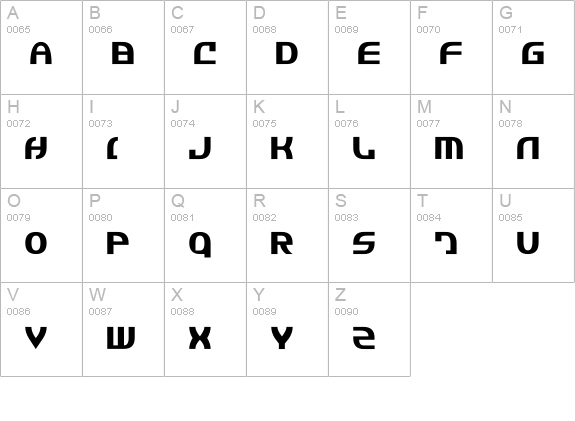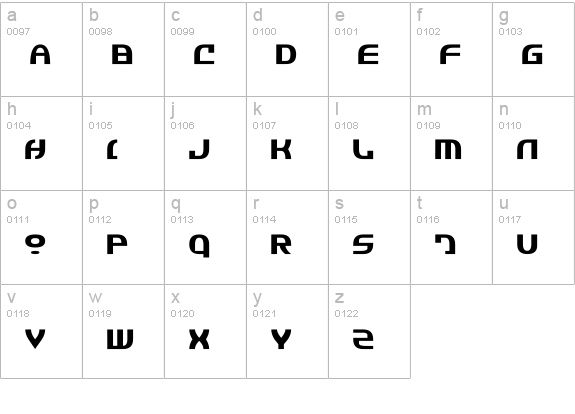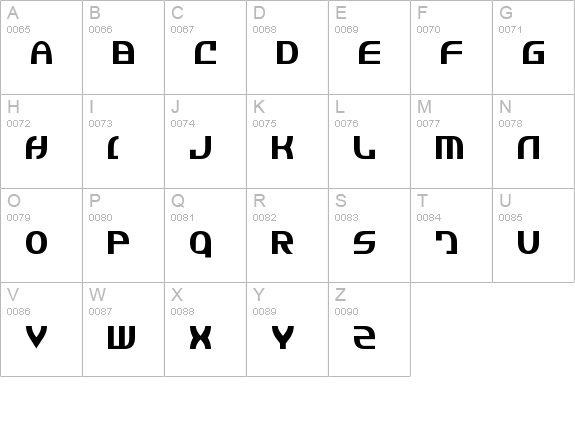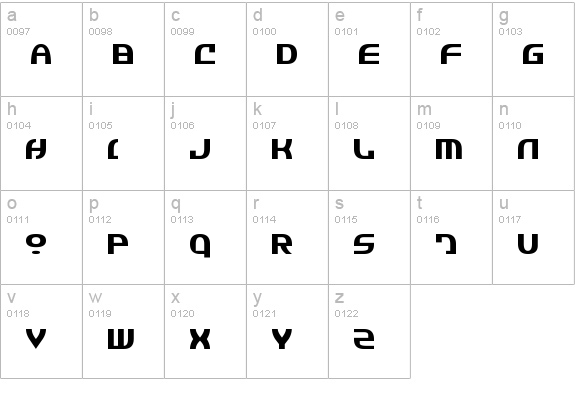
Jannisary Extra Font Details
Introducing Jannisary Extra, a stunningly bold and expressive font that will captivate your audience with its powerful presence. Created with meticulous attention to detail and an unwavering commitment to quality, Jannisary Extra is a true masterpiece in the world of typography. This font boasts a unique combination of strength and elegance, making it perfect for a wide range of design projects. Whether you're creating eye-catching headlines, designing striking logos, or crafting impactful posters, Jannisary Extra will effortlessly elevate your work to new heights. With its clean lines and sharp angles, Jannisary Extra commands attention and exudes confidence. Each letter is meticulously crafted to ensure legibility and readability, even at smaller sizes. This versatility allows you to use Jannisary Extra across a variety of platforms, from print to digital, without compromising on the overall impact of your design. But what truly sets Jannisary Extra apart is its generosity. This incredible font is available for free, allowing designers and creatives of all backgrounds to access its extraordinary potential. You can easily download Jannisary Extra at FontsMarket.com, where it is freely available for personal and commercial use. Don't miss out on the opportunity to enhance your designs with the bold and captivating essence of Jannisary Extra. Download this extraordinary font today and experience the creative possibilities that await you.